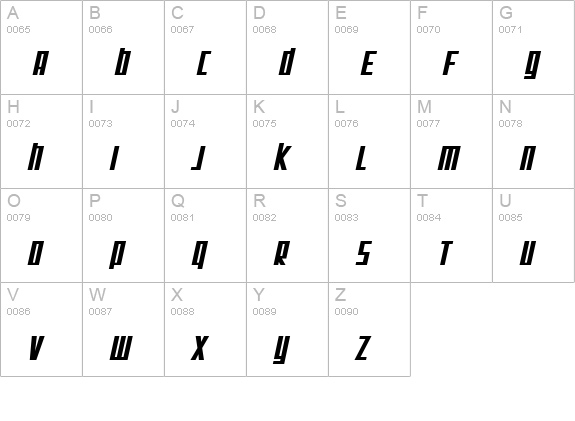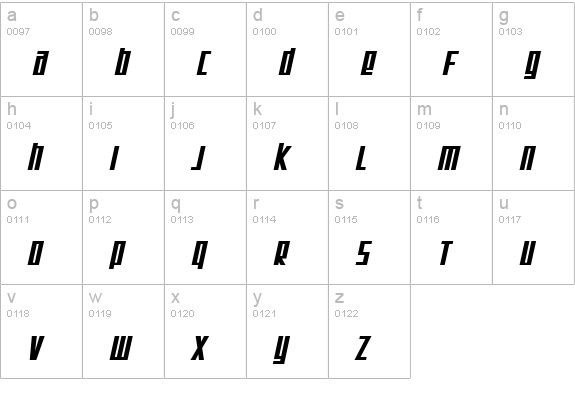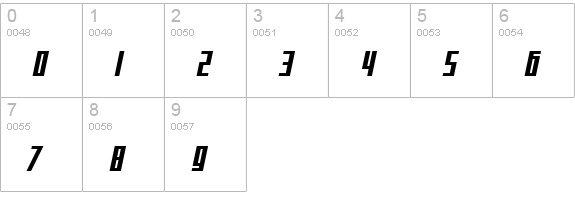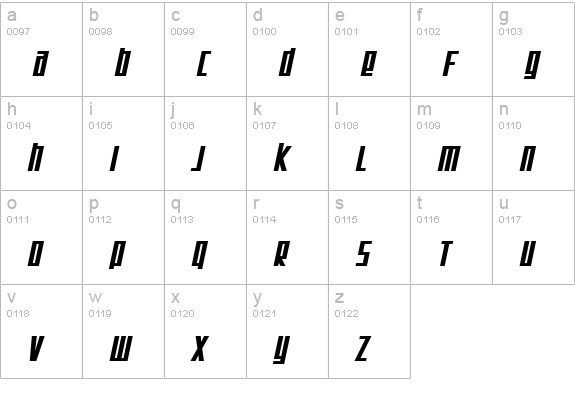
SF Square Root Bold Oblique Font Details
SF Square Root Bold Oblique is a strong, high-contrast, italic variant in the SF typeface family \xE2\x80\x94 well suited to headlines, attention-grabbing titles, and strong calls-to-action.
SF Square Root Bold Oblique is a stunning typeface that effortlessly combines sleek modernism with a bold, adventurous spirit. Its unique design features sharp angles and exaggerated curves, creating a powerful visual impact that is both captivating and unforgettable. This font is perfect for those seeking to make a statement with their typography. Whether you're designing a logo, creating eye-catching headlines, or crafting a striking poster, SF Square Root Bold Oblique will command attention and leave a lasting impression. The bold oblique style adds an extra layer of excitement and dynamism to this already remarkable font. It lends a sense of movement and energy, making it perfect for projects that require a touch of flair and excitement. One of the best things about SF Square Root Bold Oblique is that it is freely available to download at FontsMarket.com. This means that you can instantly add this stunning font to your design arsenal without any cost. So, whether you're a professional designer or a hobbyist looking to add a touch of style to your personal projects, SF Square Root Bold Oblique is the perfect choice. With its striking design, bold oblique style, and the added bonus of being free to download, SF Square Root Bold Oblique is truly a font that stands out from the crowd. It is a testament to the power of typography to captivate and inspire. So why wait? Head over to FontsMarket.com today and start creating with SF Square Root Bold Oblique.